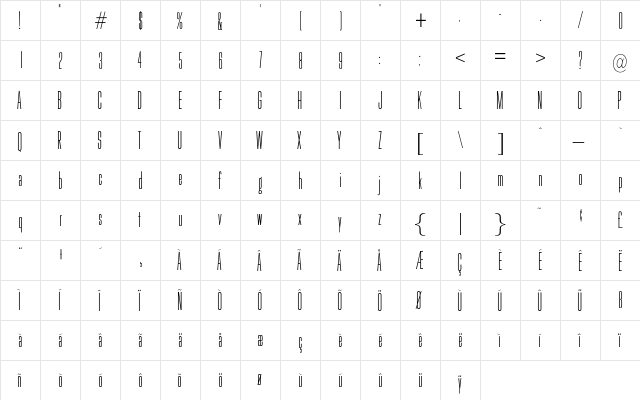
Enterprise Regular Font Preview
Enterprise Regular
Enterprise Regular Font Details
Design Context for Enterprise Typeface
Enterprise is a composed and adaptable typeface that performs quietly and consistently across a wide range of design contexts.